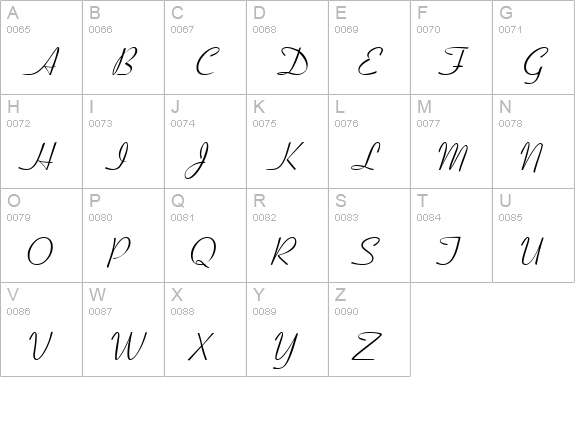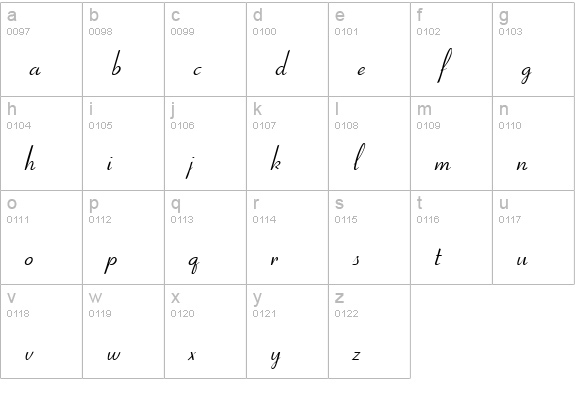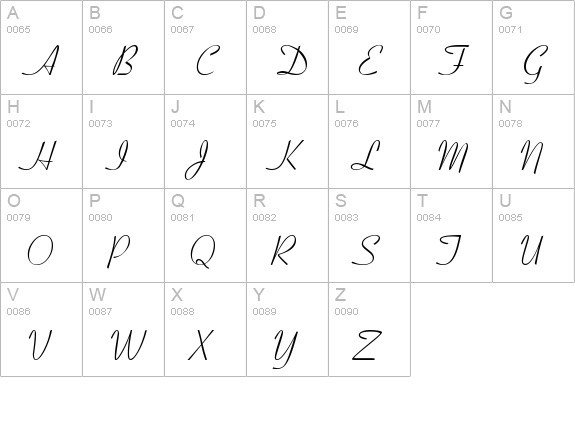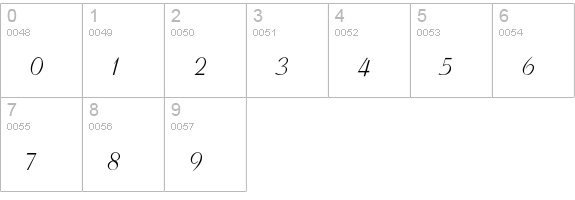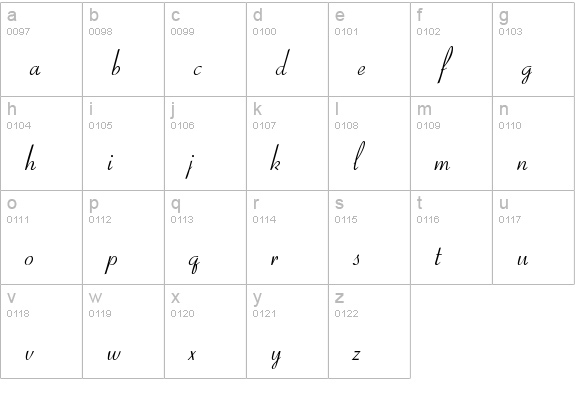
Cornet Regular Font Details
Cornet Regular is the standard, neutral variant in the Cornet typeface family \xE2\x80\x94 well suited to general body text, paragraphs, and standard typographic work.
Cornet Regular is a versatile and elegant font that exudes a sense of sophistication and modernity. With its clean lines and timeless appeal, this typeface is perfect for a wide range of design projects, from branding to editorial design. The sleek and balanced letterforms of Cornet Regular make it easy to read both in print and on screen, ensuring maximum readability for your audience. The best part? Cornet Regular is available for free download at FontsMarket.com. This means that you can access this high-quality font without breaking the bank, making it a valuable addition to your font collection. Whether you're a professional designer looking for a reliable typeface or a hobbyist seeking to elevate your projects, Cornet Regular is a fantastic choice that won't cost you a dime. Download it today and see for yourself the beauty and versatility of this exquisite font.